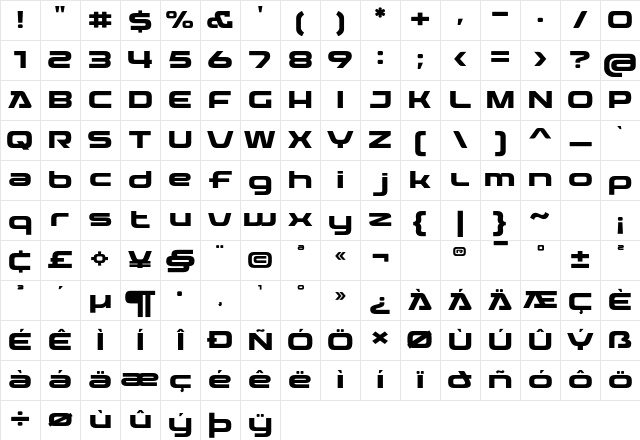
Cravend Regular Free Font
Cravend Regular
Foundry: Namara Creative
Designer: Toni Setiawan
Design Context for Cravend
Cravend is a composed and adaptable typeface that performs quietly and consistently across a wide range of design contexts.